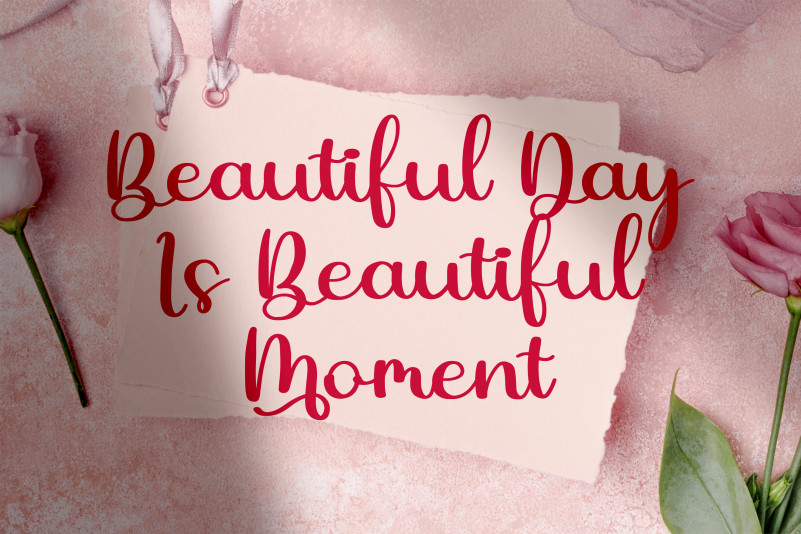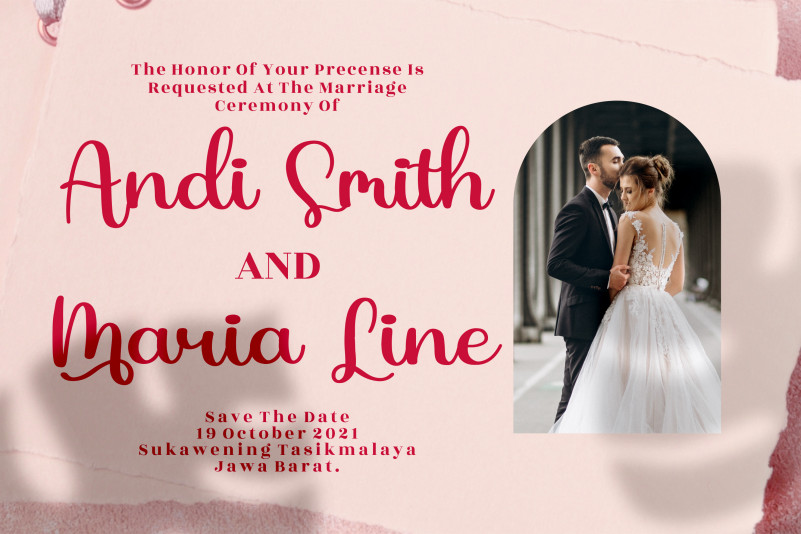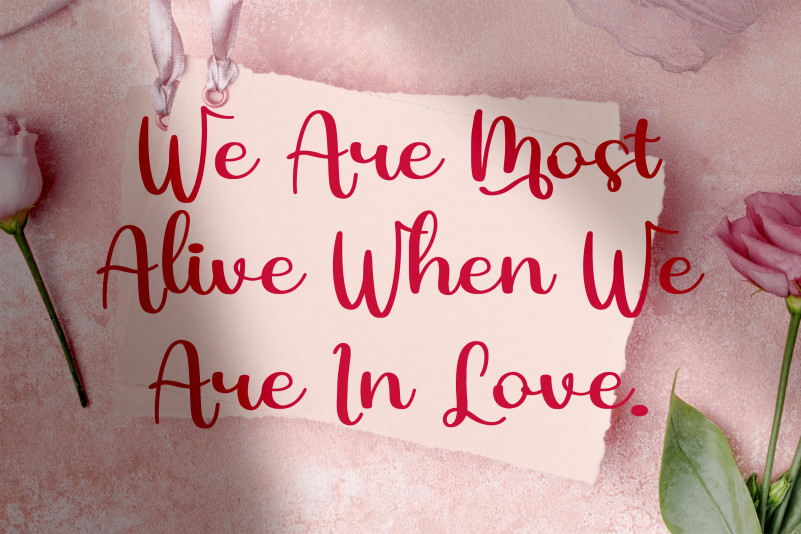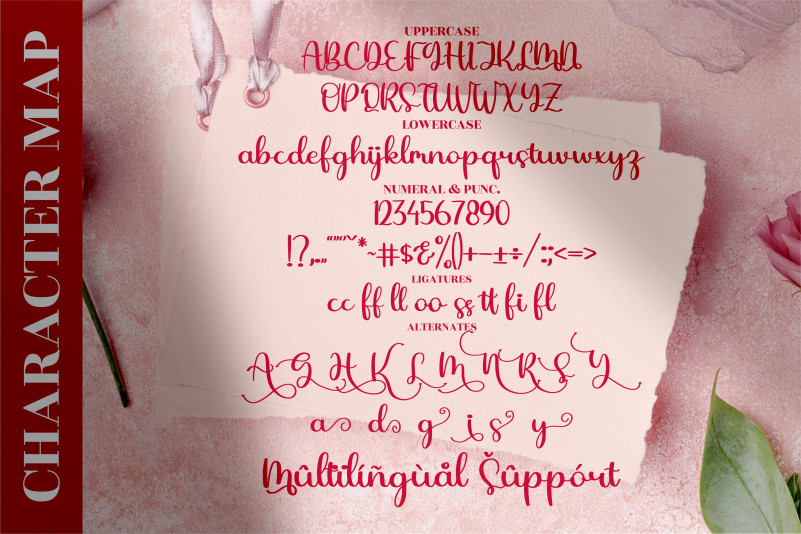
Lolytta Renda Font
Lolytta Renda Calligraphy Font
It’s a romantic calligraphy font, suitable for any projects such as: logos, branding projects, homeware designs, product packaging, mugs, quotes, posters, shopping bags, t-shirts, book covers, name card, invitation cards, greeting cards, label, photography, watermark, special events, and all your other lovely projects that need a beautiful script taste.